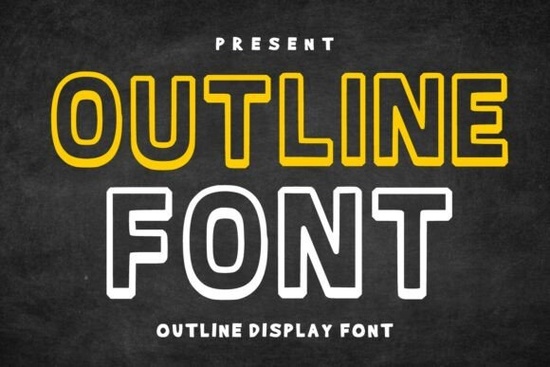
If you're looking for a bold, clean display font that works well on both screen and print especially for sports, gaming, or apparel projects the Outline Font is a straightforward choice. It’s designed with strong outline letterforms and geometric shapes, giving headlines presence without sacrificing readability. Unlike overly decorative fonts, it keeps things modern and functional ideal if you’re making team logos, T-shirt designs, social media graphics, or Cricut projects where clarity and impact matter.
When does Outline Font work best?
This font shines in contexts where you need instant visual recognition. Think varsity jackets, esports banners, event posters, or product packaging for athletic gear. Its sporty aesthetic isn’t cartoonish or dated it reads as current and confident. Because the outlines are consistent and well-proportioned, it scales cleanly from small merch tags to large wall decals. Print-on-demand sellers often choose it for its reliability across fabric, vinyl, and paper substrates.
It also pairs well with simpler sans-serifs or neutral body fonts. For example, use Outline Font for your headline and something like Sandy Beach Font for a friendly subheading in summer-themed promotions or pair it with Urban Crack Font for contrast in urban streetwear branding.
How does it compare to other display fonts?
Unlike script-based display fonts such as Fancy Scribble Font, which leans into hand-drawn charm, Outline Font prioritizes structure and visibility. It’s more restrained than Wedding Birthday Font, which suits celebratory or elegant themes, and less distressed than Haydn Font, which adds subtle vintage texture. That makes Outline Font especially useful when you want energy without noise like for a youth soccer league logo or a fitness app banner.
One practical note: because it’s an outline (or “stroked”) font, it may require extra attention in cutting software like Cricut Design Space or Silhouette Studio. Make sure to convert text to outlines or use the font’s included vector files if available this avoids thin strokes disappearing during cut or print processing.
Real uses from real creators
Small business owners have used Outline Font for gym membership cards, where the bold shape holds up even at 12pt size. Crafters report success with iron-on transfers for hoodies especially when layered over textured fabrics, since the clean geometry prevents visual clutter. Designers working on esports team kits appreciate how easily it adapts to hexagonal or angular layout grids. And for social media, it holds up well in thumbnail-sized graphics where fine details get lost.
It’s not meant for long paragraphs or body copy that’s not what display fonts do. But for short, high-impact phrases (“WIN,” “TEAM,” “LEVEL UP”), it delivers consistency and confidence. If you’ve tried bolder condensed fonts and found them hard to read at distance, this one offers better legibility thanks to generous spacing and open counters.
What to keep in mind before using it
- Color contrast matters: Since it’s outlined, avoid placing thin white strokes over light gray backgrounds stick to high-contrast combos like black-on-white or navy-on-yellow.
- Try pairing it with a neutral sans-serif: For balance, pair with fonts like Inter, Montserrat, or Open Sans not another heavy display face.
Before downloading, ask yourself: Is this for a short headline or logo? Will it appear on physical products like apparel or signage? Does my audience respond well to bold, structured visuals rather than playful or ornate ones? If yes to all three, Outline Font is likely a solid fit and worth testing alongside options like Urban Crack Font or Sandy Beach Font to see which better matches your project’s tone.